Bubble Graffiti Fonts: Retro, Playful & Free to Use
Explore bubble graffiti fonts: their retro charm, popular uses, and how to create stunning designs & websites with a bubble graffiti fonts generator.
Once in the world of typography, many font styles compete for the attention of unsuspecting spectators. One of the most unique designs with vast cultural influences is bubble graffiti font-thick, high, round, and often playful. Emanating from the fluid sphere of street art, it is a font worn so gladly in any design application. It is supposed to portray a sort of retro charm, lively spirit, and young sense of rebellious creativity. Hence, designers value its utmost power to project a little character into their handiwork. In this edition, we look at the long-standing attraction of fun fonts, how commonly they are applied in different fields, getting yourself familiar with 10 different bubble font names, and demonstrating ways to incorporate these loud graffiti font styles into your works. Moreover, we will investigate how AI can change the process of creating a website, especially when it comes to showcasing such extraordinary forms of typographic art.
Why Bubble Graffiti Fonts Are Popular and Where People Use Them
The sustained fame that bubble graffiti numbers enjoy can be attributed to some important factors that really resonate within visual culture. First is their feel-good nature stemming from the rounded forms of these letters. In contrast to sharp and rigid typefaces, the formation of bubble graffiti letters tends to feel soft, almost cuddly, thus immediately indicating that they have a fun, casual, or youthful spirit about them. This makes them highly effective for projects intended originally for a younger crowd or a more fun tone. The retro appeal also comes into consideration; it is like a call from the big golden era of hip-hop, skate culture, and 80s/90s urban art with which many people are familiar. This lends an authentic, cool, and edgy feel, which does not come across as too aggressive.
Usually, where are these fascinating website font styles utilized in graffiti? This is about a variety of design works:
- Branding and Logos: Brands that wish a somewhat juvenile, edgy, or playful personality for themselves generally consider this typeface. Toy brands, casual wear, record labels, or food-and-beverage manufacturers geared towards a vibrant market can be potential customers. Bubble graffiti letters and bubble graffiti numbers render logos unforgettable through their unique shapes.
- Social Media Graphics: An eye-catching visual is paramount in social media, with the fast-paced atmosphere it lives in. An attractive display font makes it more engaging for a headline, a call to action, or the text on a meme, leading to a greater chance of shares.
- Children's Books and Educational Materials: Often connected to rebellion, the rounded, friendly shapes of bubble graffiti letters can also be softened for use with learning resources, making the learning process fun for children.
- Web Design (Headlines/Banners): For body text, this font is discouraged from being used due to the lack of readability; however, the font would work well for headlines or banners on websites of creative portfolios, youth brands, or entertainment.
10 Popular Bubble Graffiti Fonts
The right bubble font name can truly transform a design. Here are 10 popular graffiti font styles that epitomize the concept of bubble art, each with its charm and areas of application. Many have a free bubble variant for noncommercial purposes.
Bombing:
Being synonymous with a classic throw-up style, this bubble font name. Bombing has thick, rounded letters that often overlap and create a very dense, inflated look. It's slightly disorganized yet cohesive demeanor is the pure raw energy of street art and carries well for headlines or event posters, or any design that wants to breathe an aura of genuine urban attitude. It is truly a quintessential font.
Attack Graffiti:
Attack Graffiti accounts for the early bubble graffiti letters with its playful, retro feel, and is often characterized by an integrated highlight. All caps with clear distinction give that bold, arcade, hip-hop, and old-school vibe. The best font choice for any designer who wants to nurture a fun, nostalgic, and kinetic vibe.
The Graffiti Font:
This font, despite carrying the generic bubble font name, truly stands out as a riotous representation of graffiti lettering. It features clean, plump bubble letters, often afforded in color varieties. The adaptability here is boundless—giving some slick sobriety to funky designs or maximum leg workout to funky and casual. A strong font with clear visibility and universal appeal!
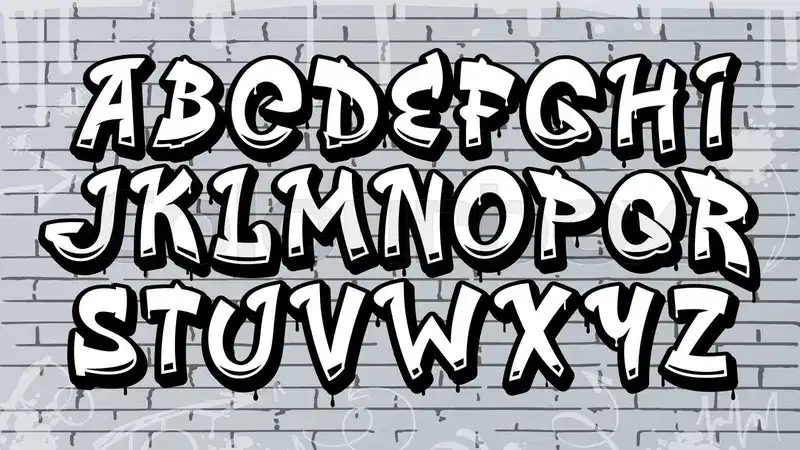
Blow Brush:
Created by Petar Acanski, Blow Brush is a funky typeface with a funky attitude. Street-natured brush strokes with rounded ends pay homage to hip-hop culture. It is an excellent font for website designs that want to combine grunge with slight approachability, adding texture to its bubble graffiti letters.
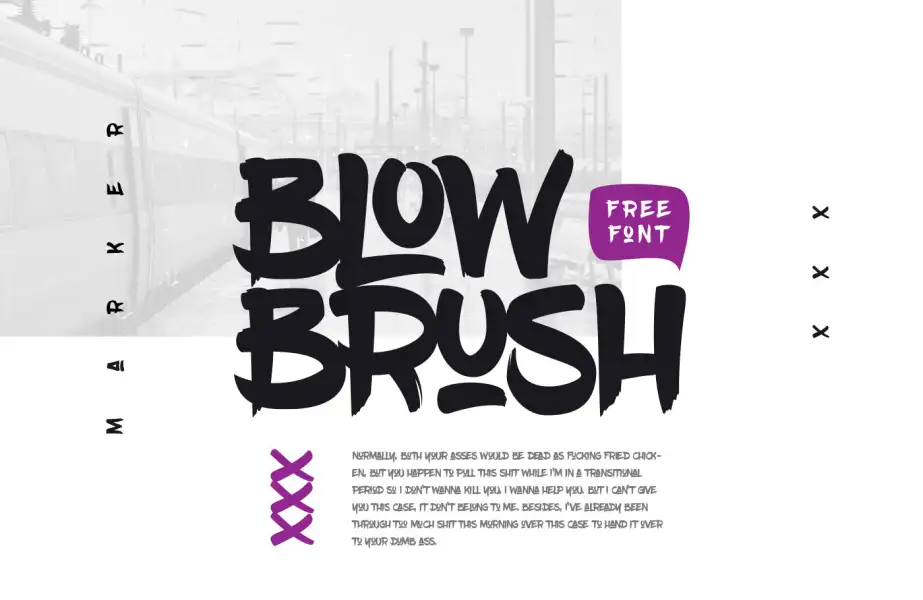
Sprite Shadow:
Sprite Shadow is perhaps one of the best legible corporate fonts with a grungy-cartoonish feel. Its well-defined outlines and rounded forms lend to ample flexibility, allowing it to work anywhere from digital art projects to fun branding. The shadow effect in many of its faces implants a deeper existing dimension to its image. It is a free bubble for a lively design.
Graffiti Paintbrush:
This bubble font name denotes its particular style: imitation of broad, rounded strokes that are the trademark of paintbrushes for urban murals. Graffiti Paintbrush is a little less formal and more organic than some other types of bubble fonts and carries an inflated soft vibe. It's best suited for artistic projects or designs needing a treated, yet bold, typeface.